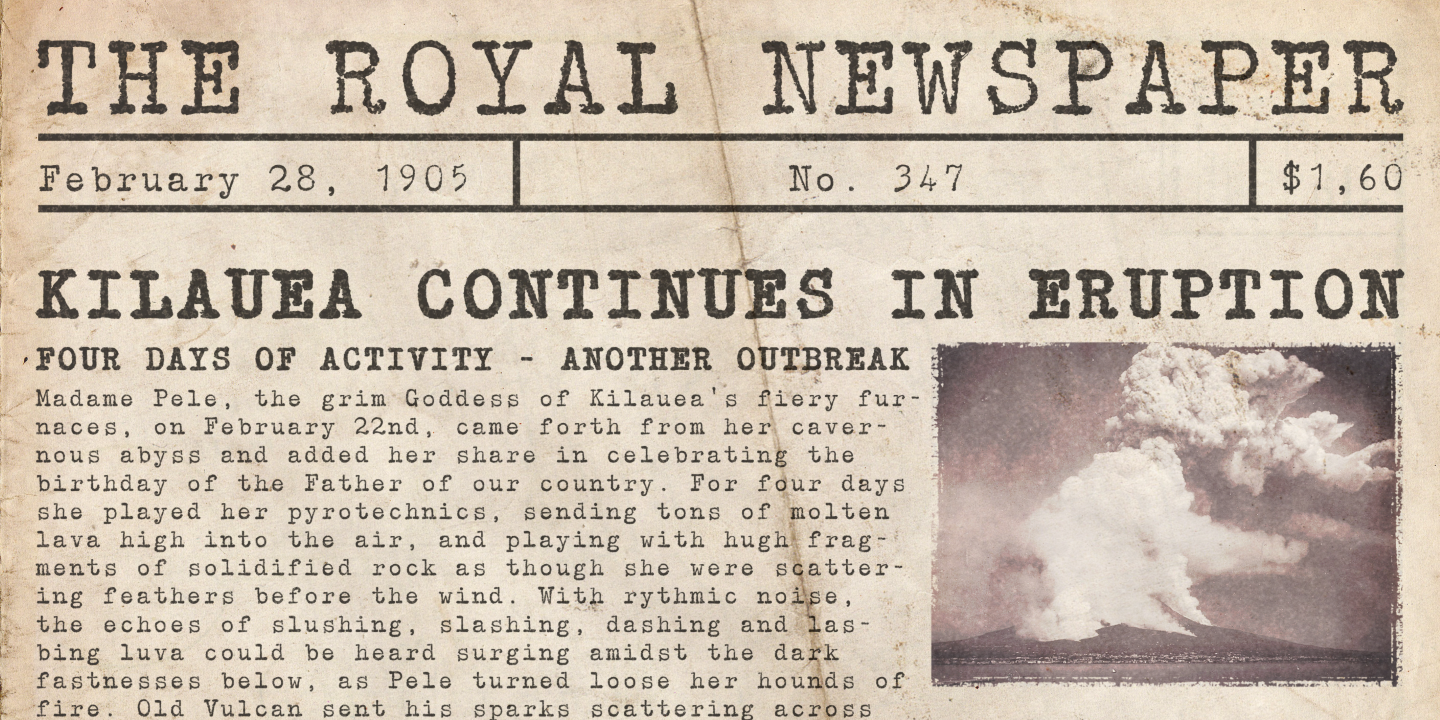
The Typewriter BasiX Font is an excellent choice for a variety of projects that demand a nostalgic, authentic, and classic aesthetic. It's perfect for vintage-themed designs, book covers, editorial layouts, personal blogs, historical documents, film titles, and branding for artisan businesses. Its distinct character makes it ideal for evoking a sense of hand-crafted quality and timeless appeal.
What makes Typewriter BasiX Font so exciting is its ability to instantly transport viewers back to a simpler time. It perfectly captures the charming imperfections and unique spacing of an old-fashioned typewriter, adding a touch of authenticity and warmth to any text. This font isn't just about reading; it's about experiencing the text as if it were meticulously typed out, giving your designs a genuine, lived-in feel. Its raw, unfiltered quality makes it stand out in a world of polished digital fonts.
The Typewriter BasiX Font family typically focuses on delivering a consistent and accurate typewriter simulation. While less about varied weights, you might find different versions offering slightly varied distress levels or ink bleed effects to enhance realism. Often, the family will include a regular style, sometimes with an italic or bold companion, maintaining the core typewriter aesthetic across all variations.
Whether you're creating a heartfelt letter, designing a compelling magazine spread, or crafting a unique brand identity, the Typewriter BasiX Font Free Download provides an unparalleled tool for injecting personality and historical charm into your work. Its distinctive look makes it a standout choice for anyone aiming to evoke a sense of heritage and genuine craftsmanship.